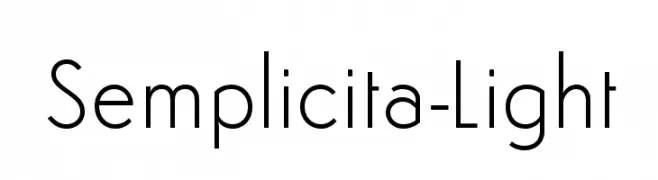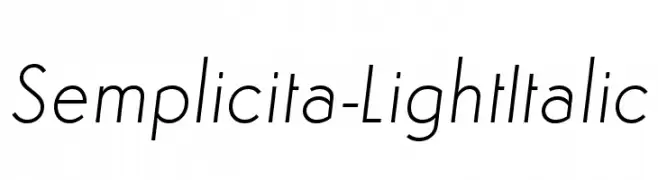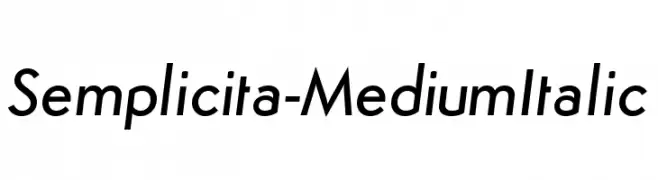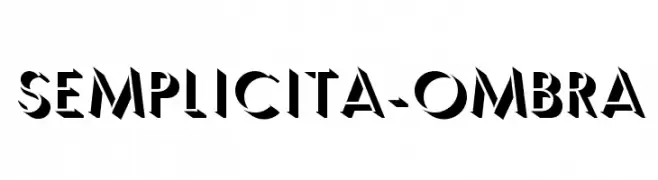
A clean, geometric sans-serif font with a modern and minimalist style.
A modern, geometric sans-serif font with a clean and professional look.
A modern, geometric italic typeface with medium contrast and a sleek, condensed style.
A sleek, light italic font with a modern and elegant style.
A bold, geometric font with a unique shadow effect for a three-dimensional look.